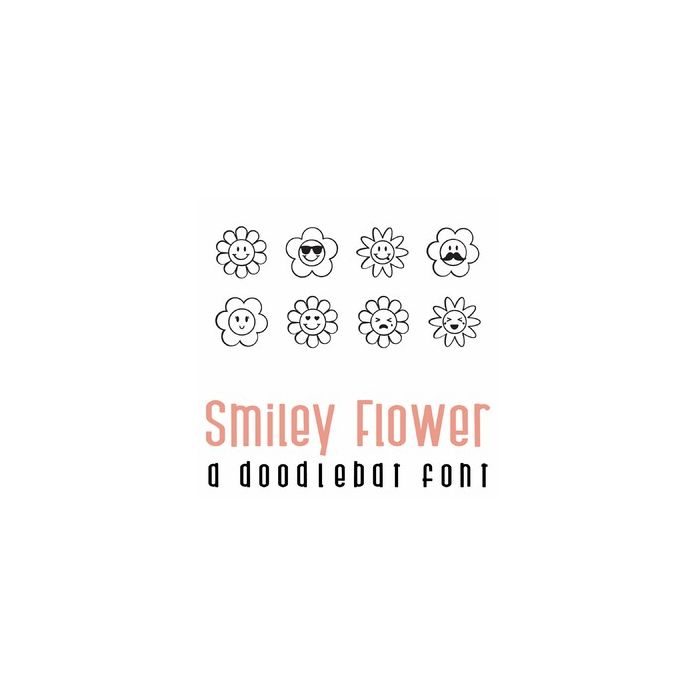
Smiley Flower Doodlebat Font
This fun doodlebat font features 26 smiling flowers. Perfect for cards, gifts, decor, crafts, scrap book pages, planner stickers and more!